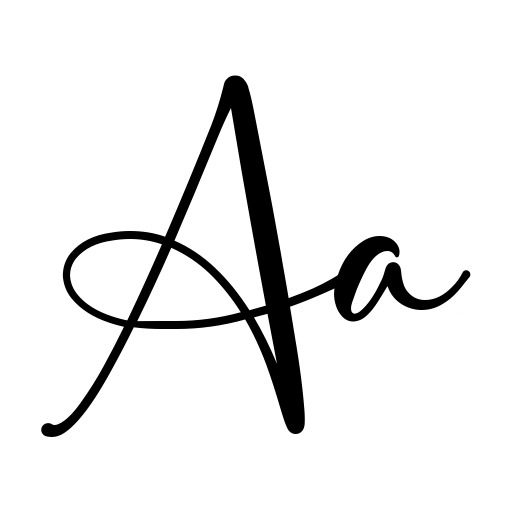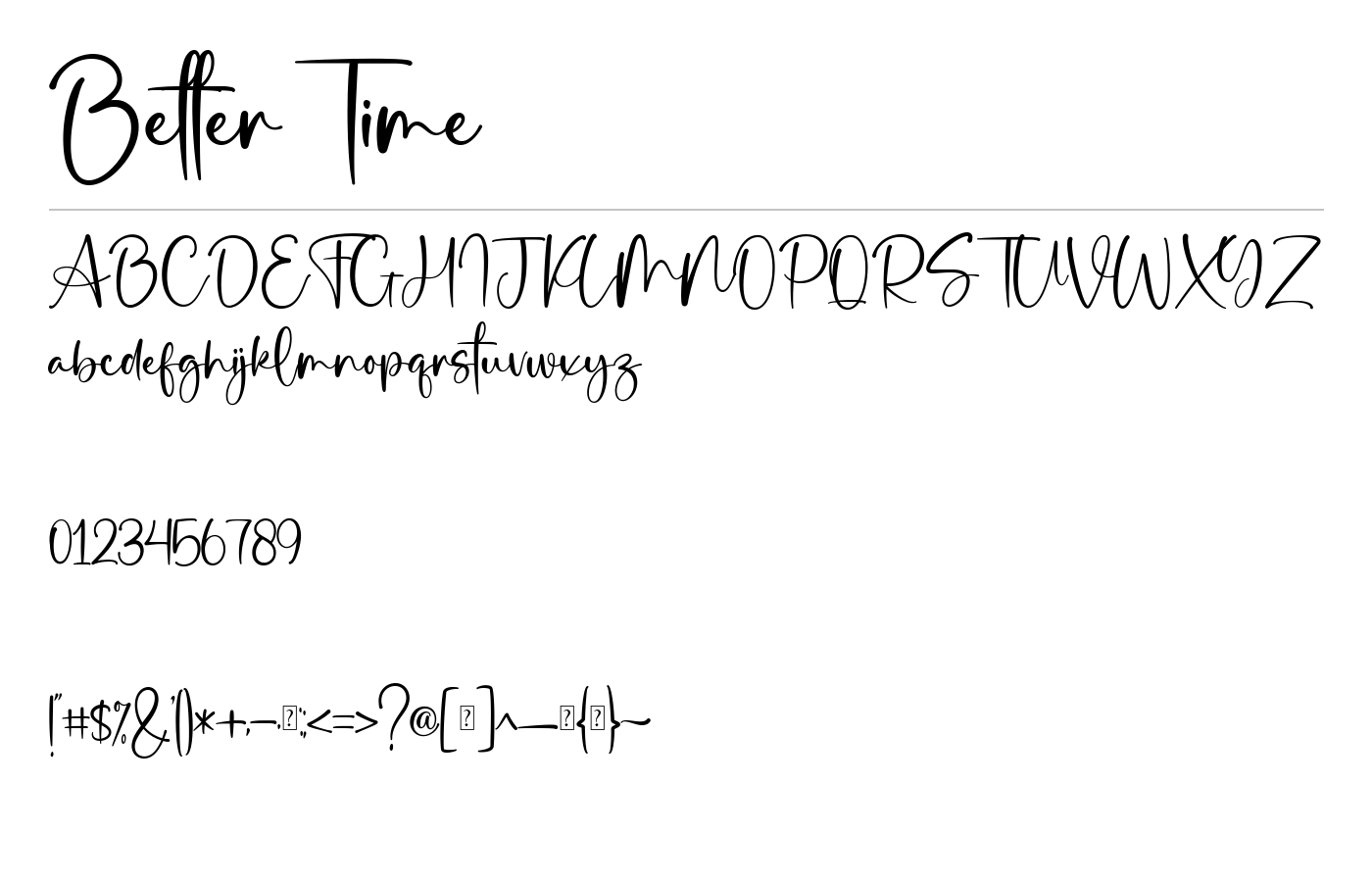
Better Time is a delicate and playful handwritten script font with tall, slender letterforms and a casual, modern flair. Its smooth, slightly irregular strokes and whimsical letter shapes give it a friendly and personal touch, making it ideal for creative branding, invitations, and social media graphics. This font brings a warm, approachable vibe that works beautifully in both display and decorative use.
Better Time Font
About Better Time Font
| Designer | ramli setiadi |